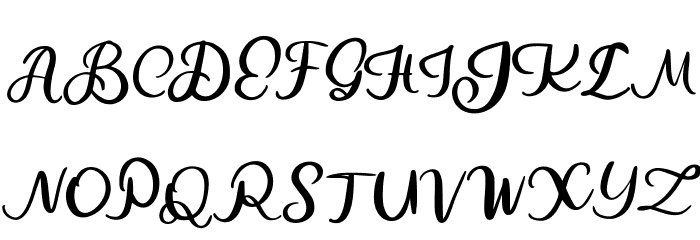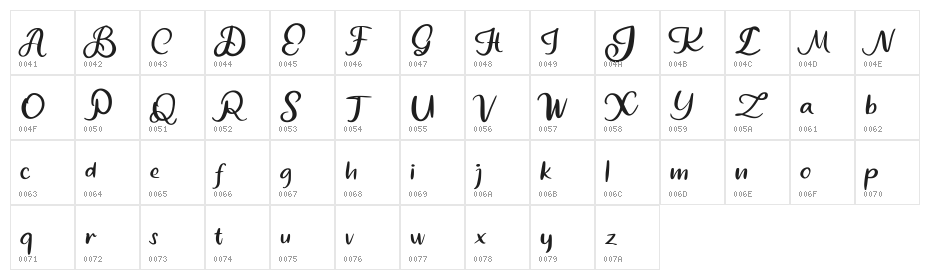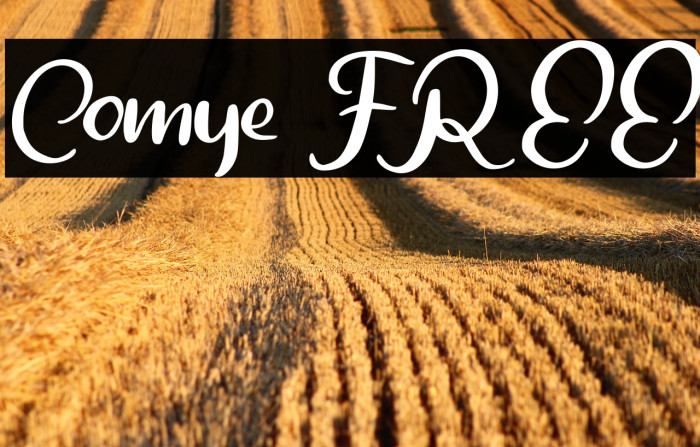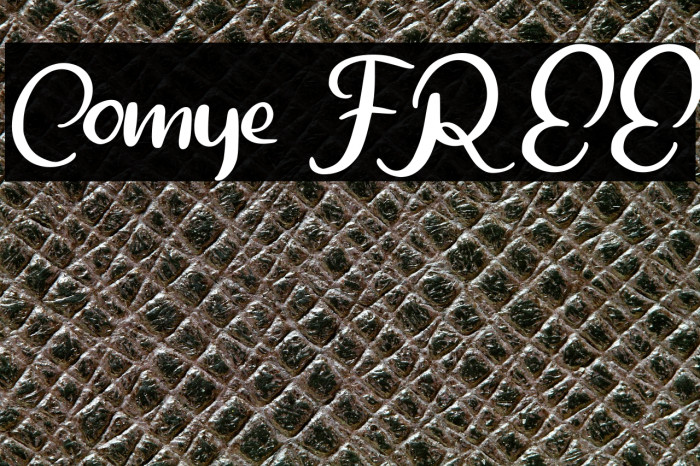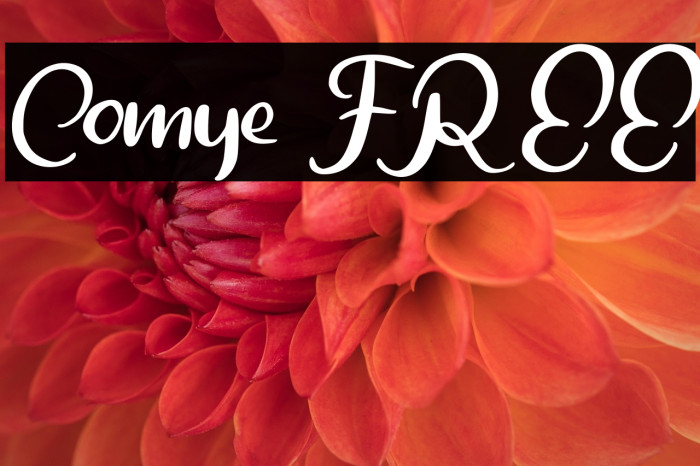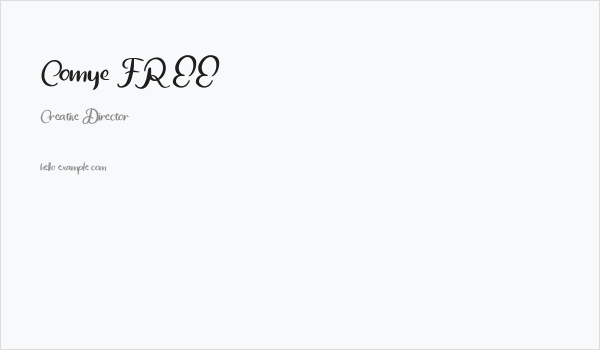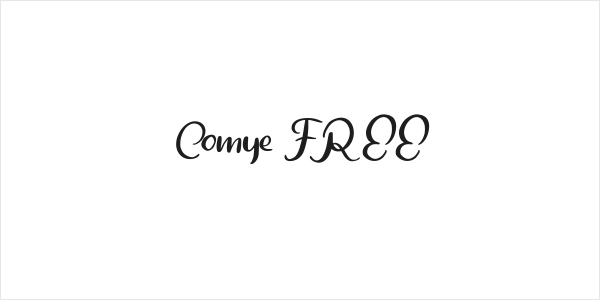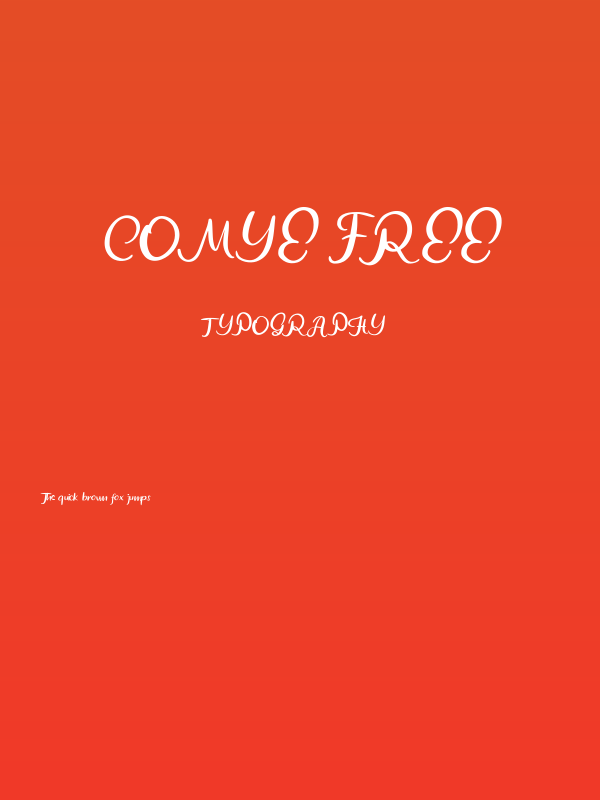
Comye FREE Font
Comye FREE Description
This font features a flowing, cursive style with elegant loops and swashes, giving it a sophisticated and artistic appearance. The uppercase letters are particularly ornate, with each character exhibiting unique flourishes that enhance its decorative appeal. The lowercase letters maintain a consistent style, offering a smooth and connected look that mimics natural handwriting. The overall design is balanced, with moderate contrast between thick and thin strokes, adding to its readability while maintaining a stylish flair. This font is ideal for projects that require a touch of elegance and creativity.
| Proposed Projects | Wedding invitations, greeting cards, branding, and logo design. |